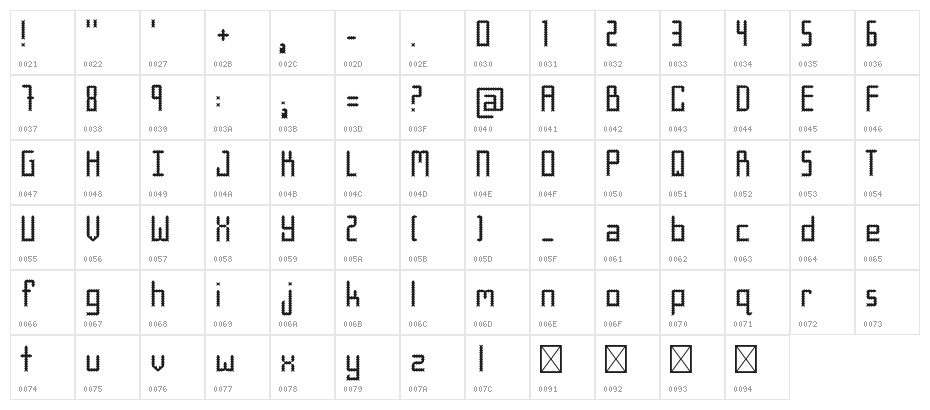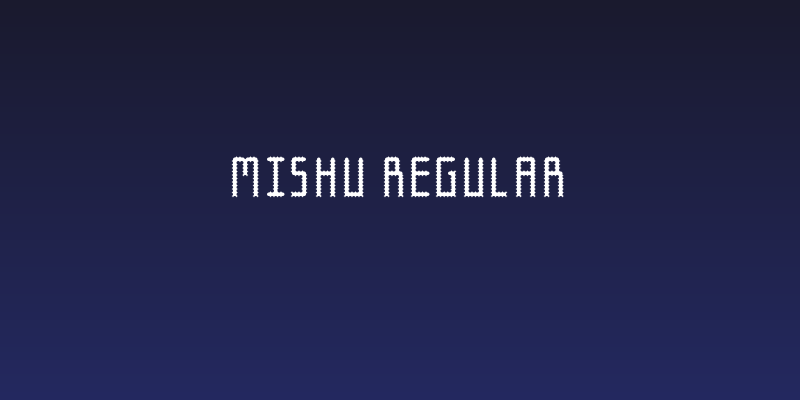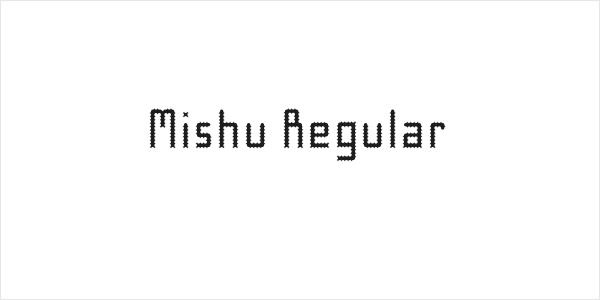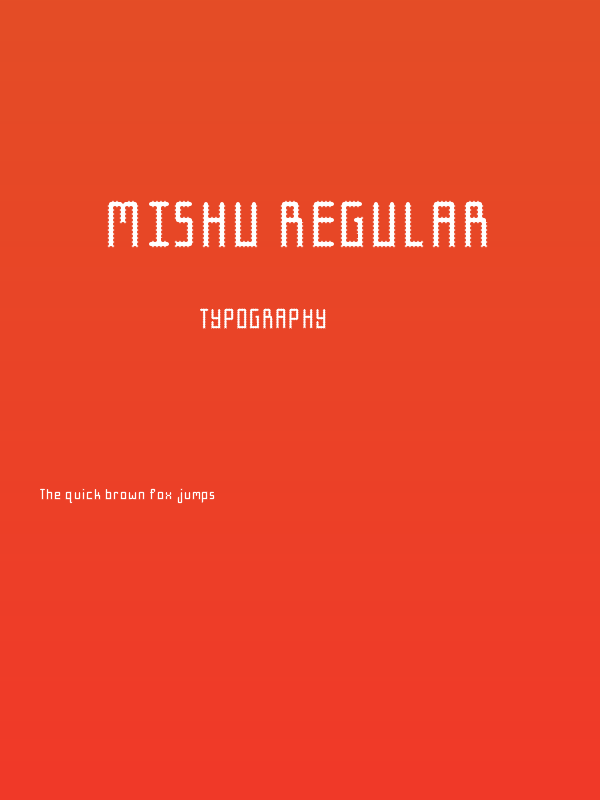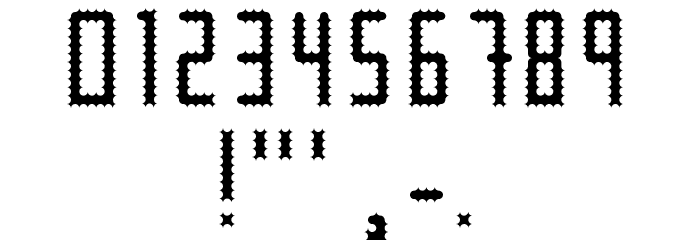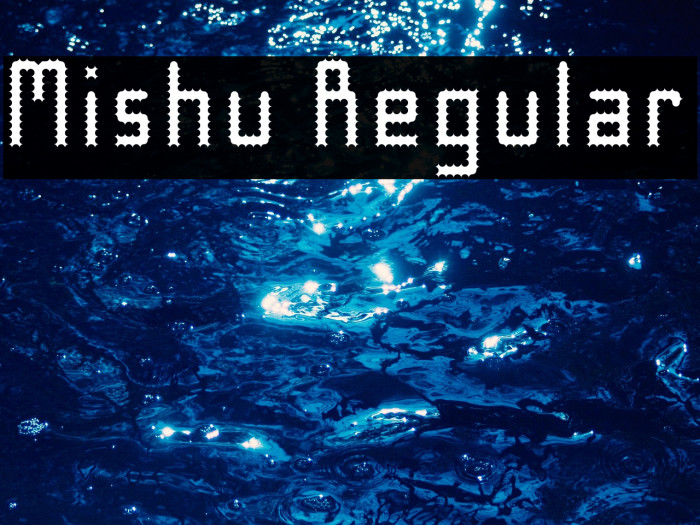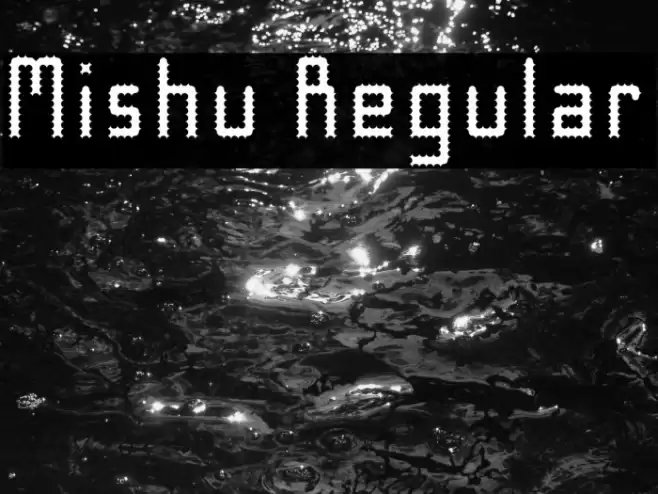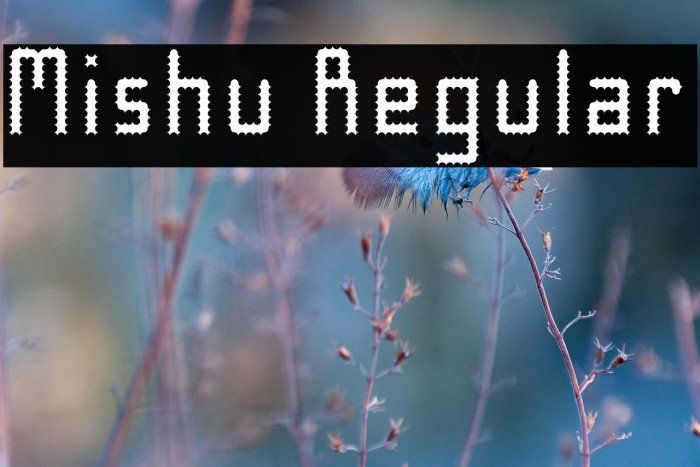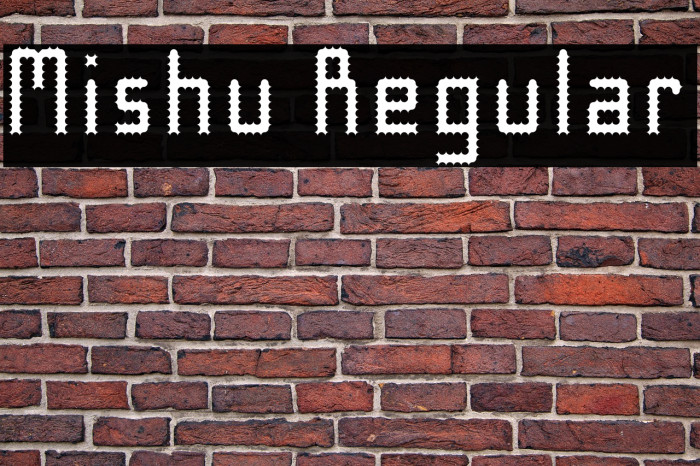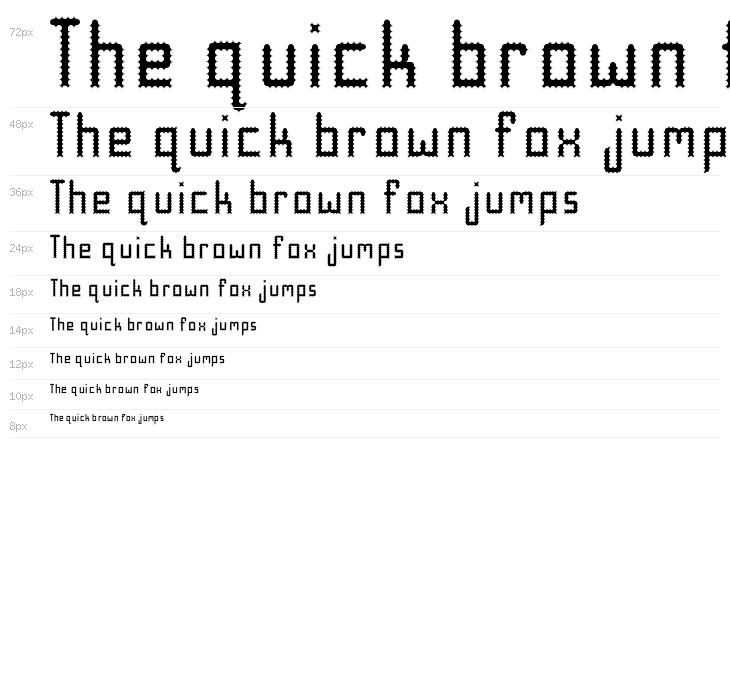
Mishu Regular Font
Mishu Regular Description
This font features a unique, decorative style with a pixelated, jagged edge appearance. Each character is composed of small, square-like elements that create a textured, almost digital look. The uppercase and lowercase letters maintain a consistent height, giving the font a uniform appearance. Numbers and special characters follow the same design principle, ensuring cohesion across all elements. The font's distinct style makes it stand out, suitable for creative and artistic projects where a bold statement is desired.